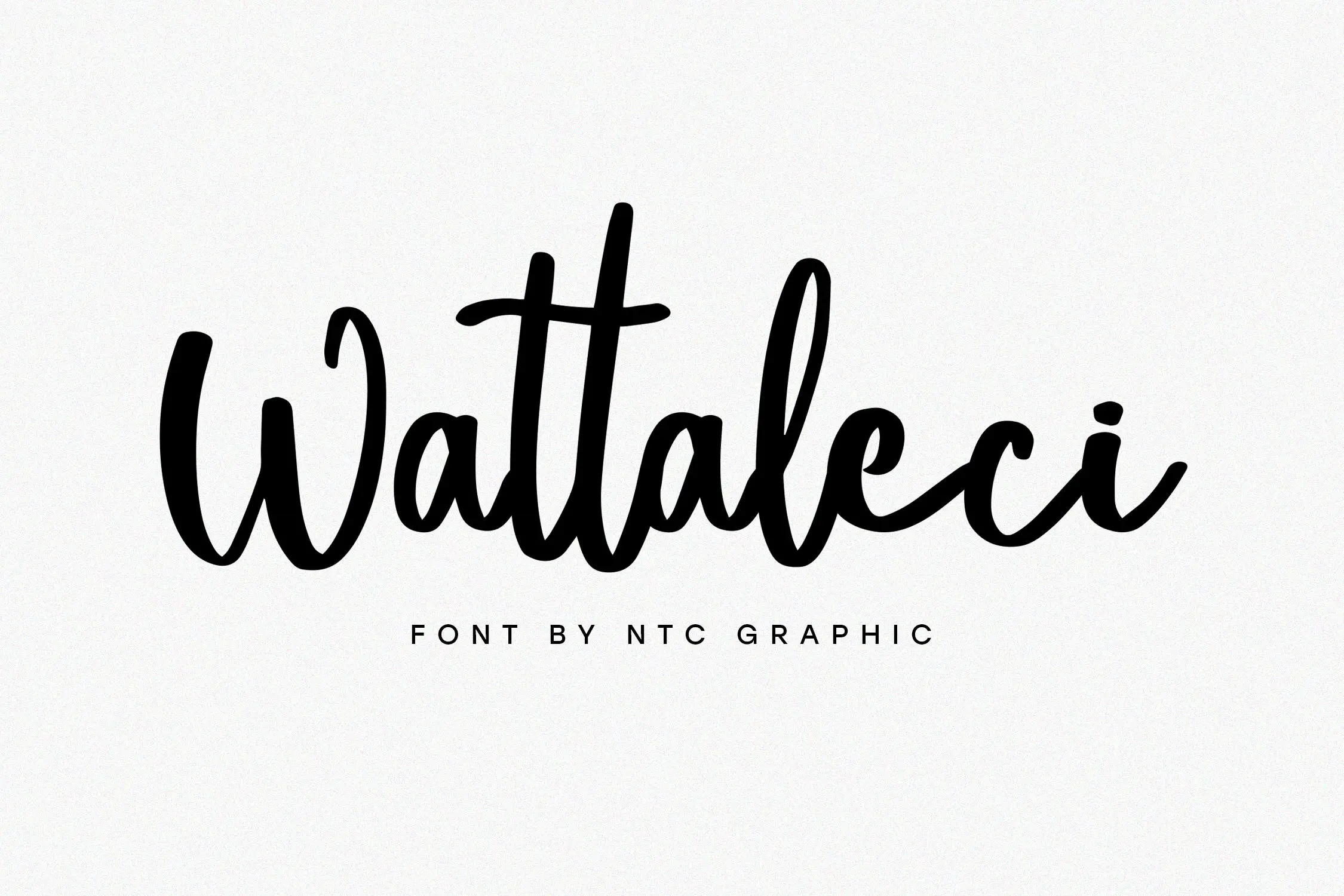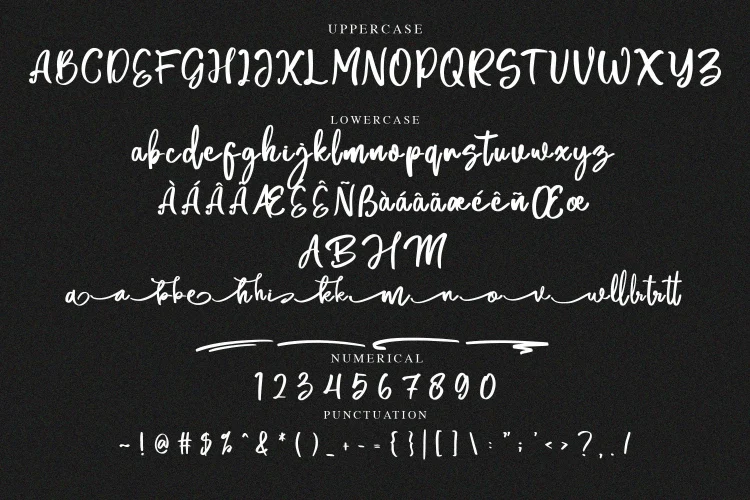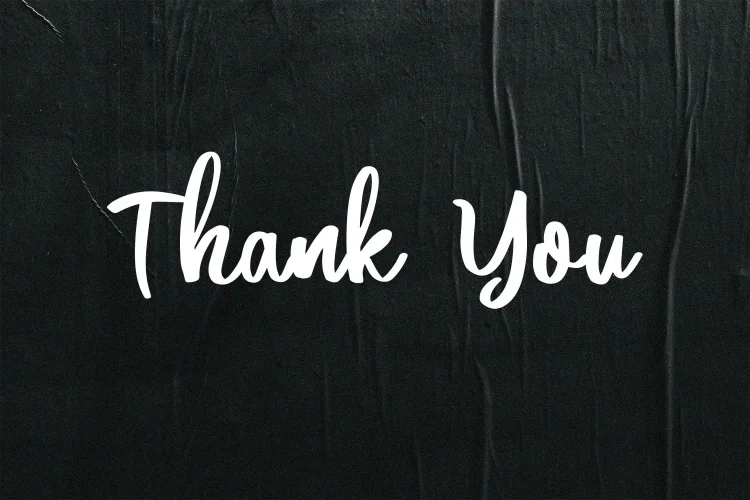
Wattaleci is a script display font with handwritten brush style. Is a font style that is made with unique shapes font characters are really good. Can be applied to support the graphic appearance of the product to be more attractive.
- Ligature
- Stylistic Alternate
- Swashes
- Multilingual Support